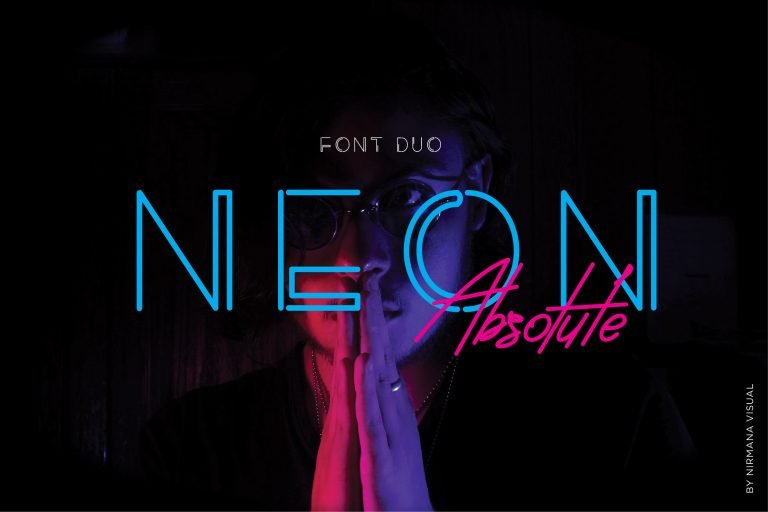
Neon Absolute Typeface
Introducing NeonAbsolute. Neon Absolute is a classy, contemporary pair of script and sans fonts, inspired by the 1980’s and neon lights. Neon Absolute offers beautiful typographic harmony for a diversity of design projects, including logos & branding, social media posts, advertisements & product designs.